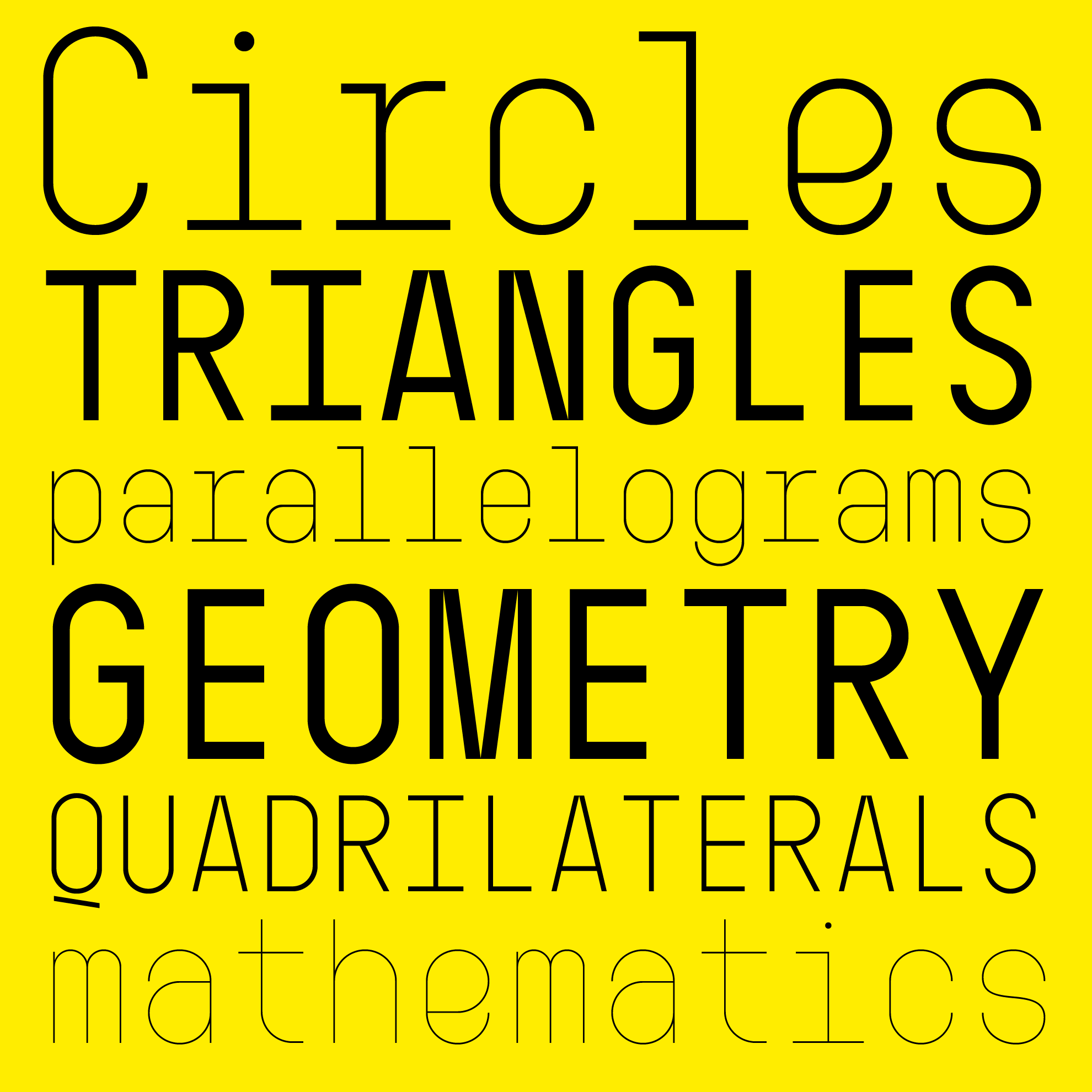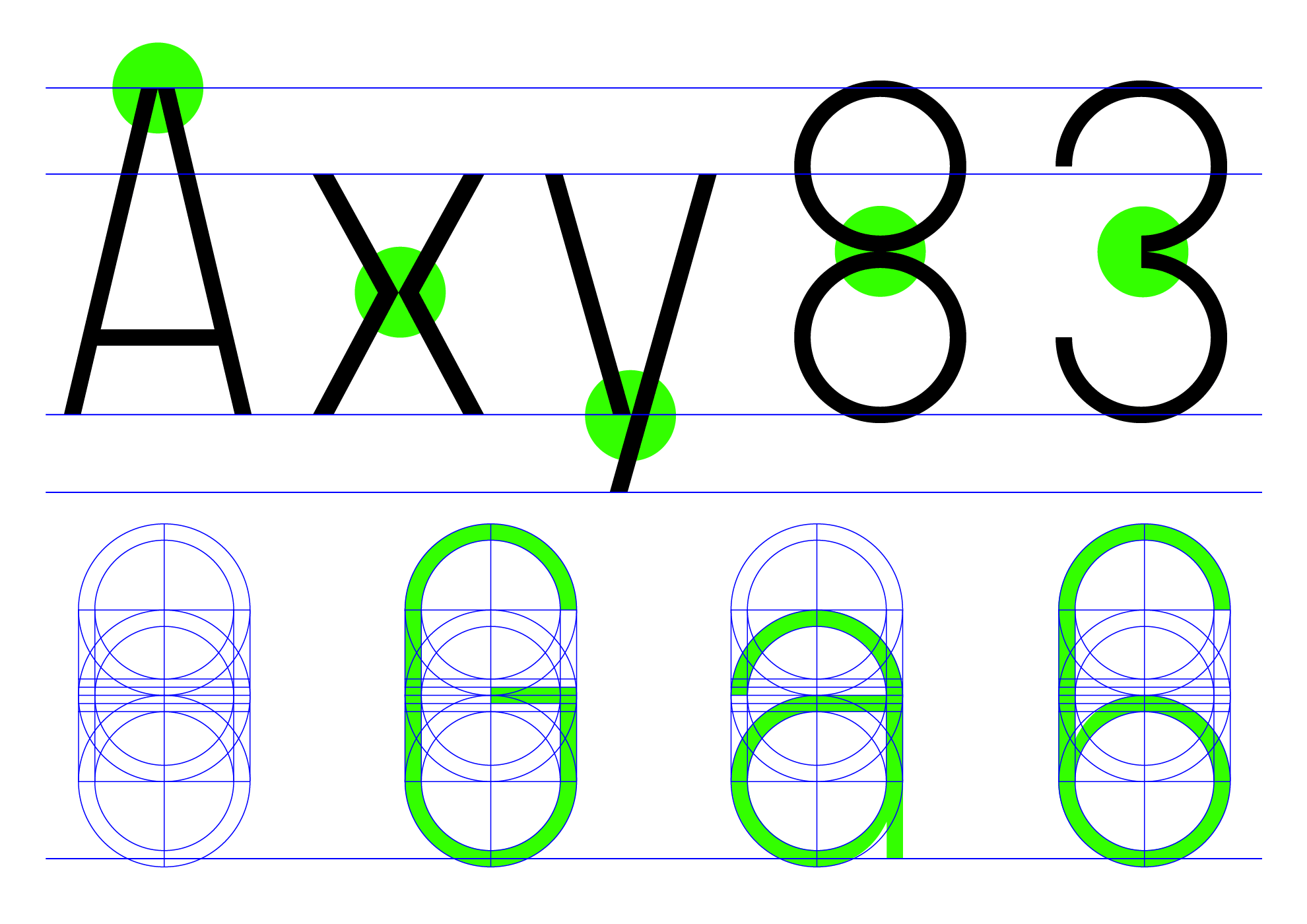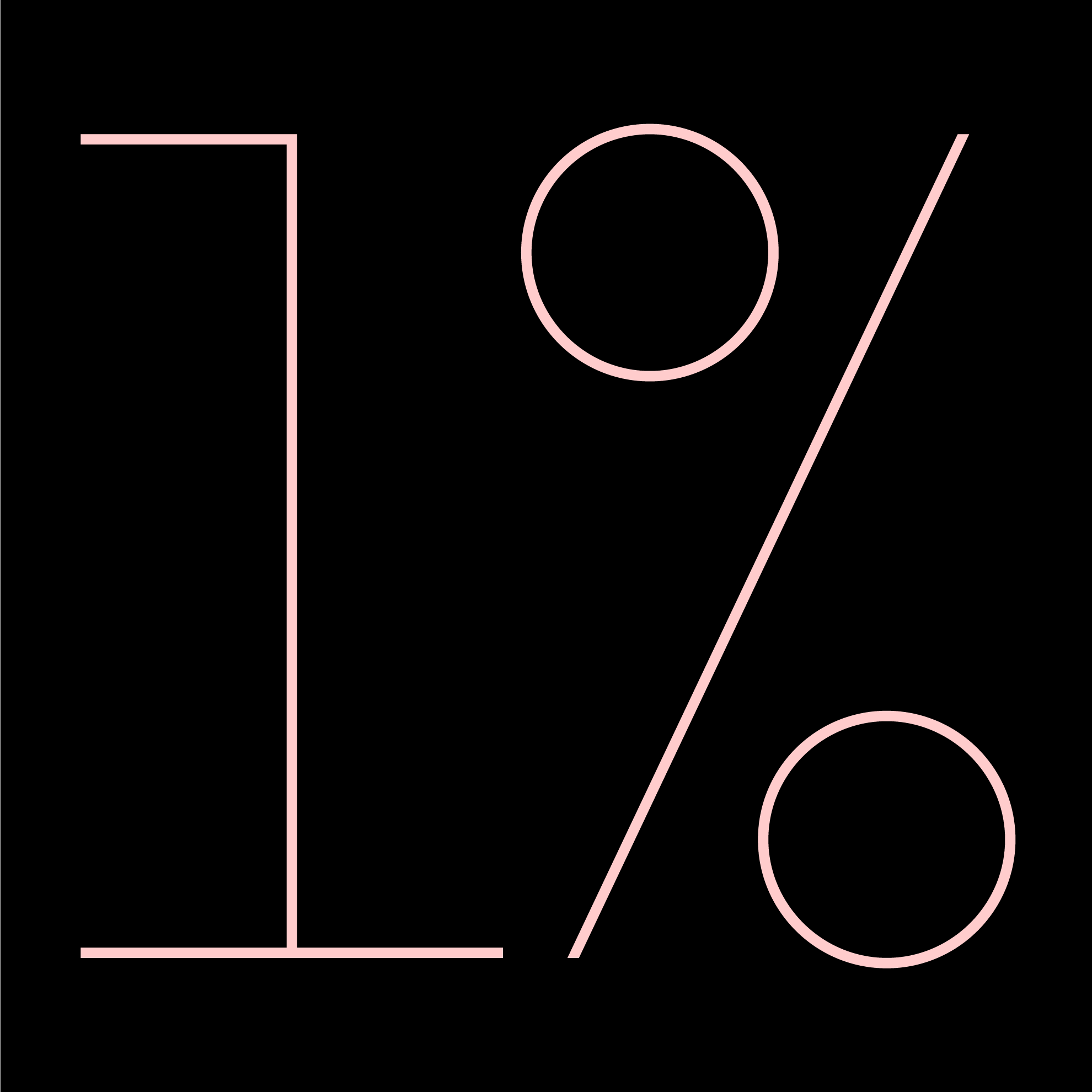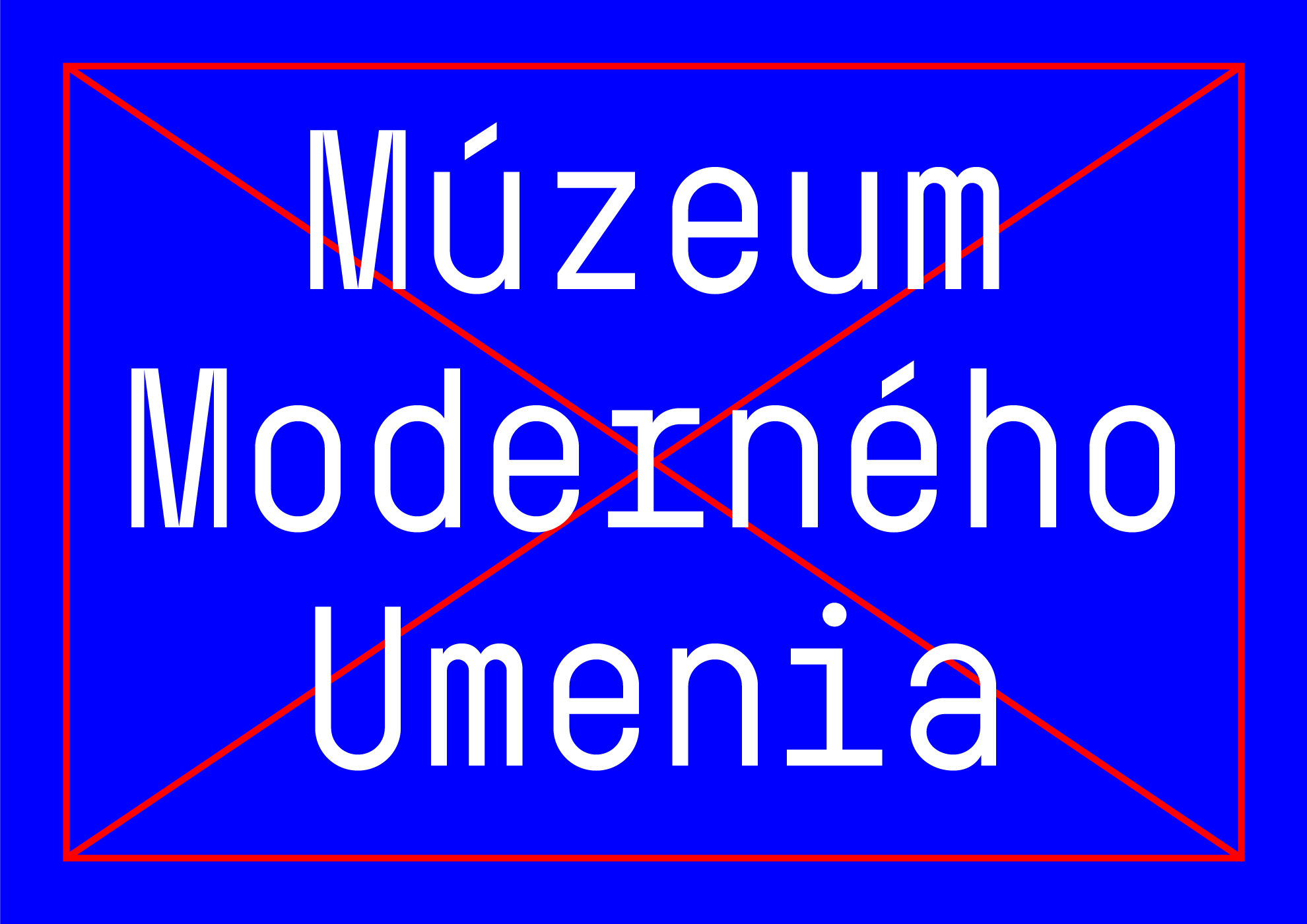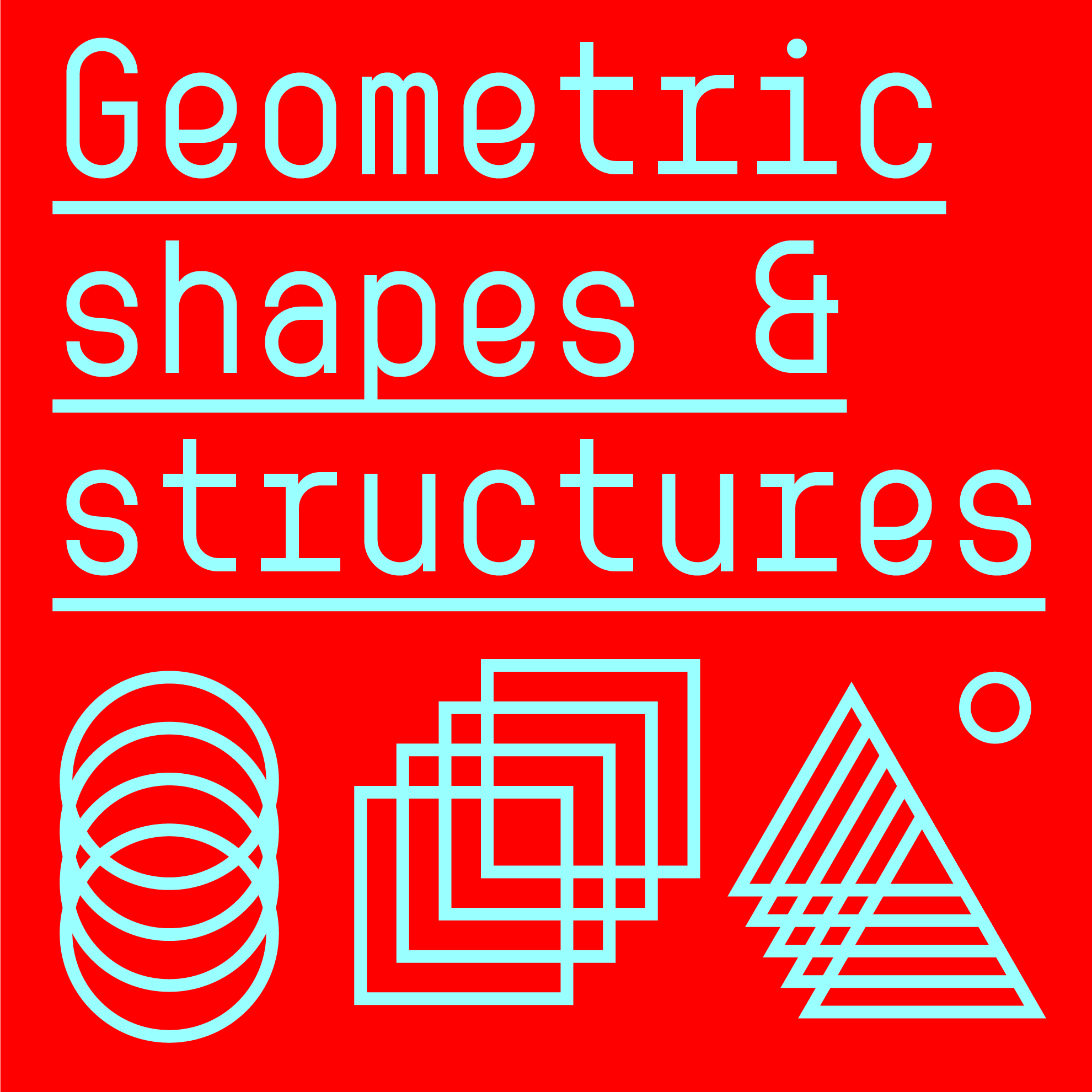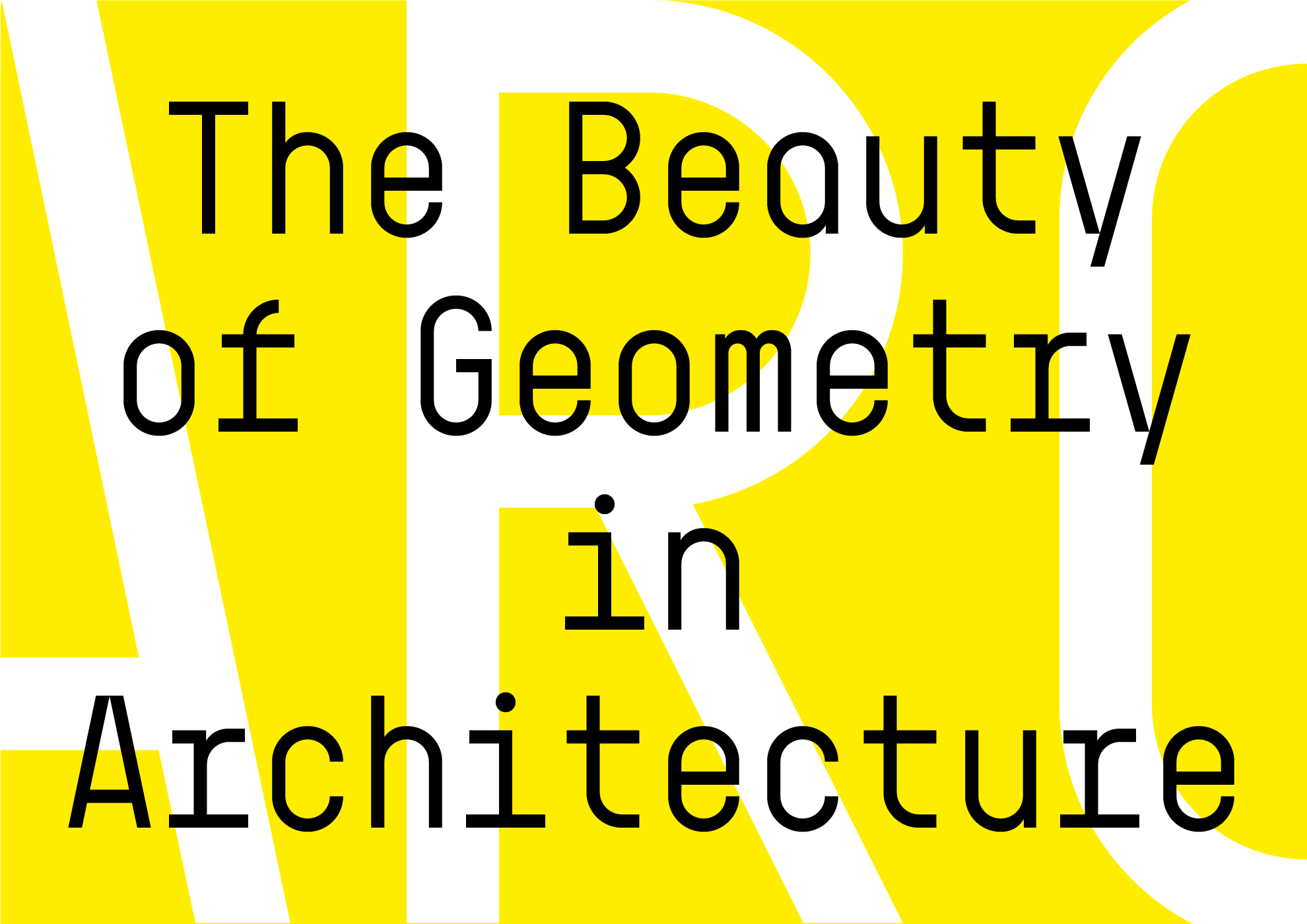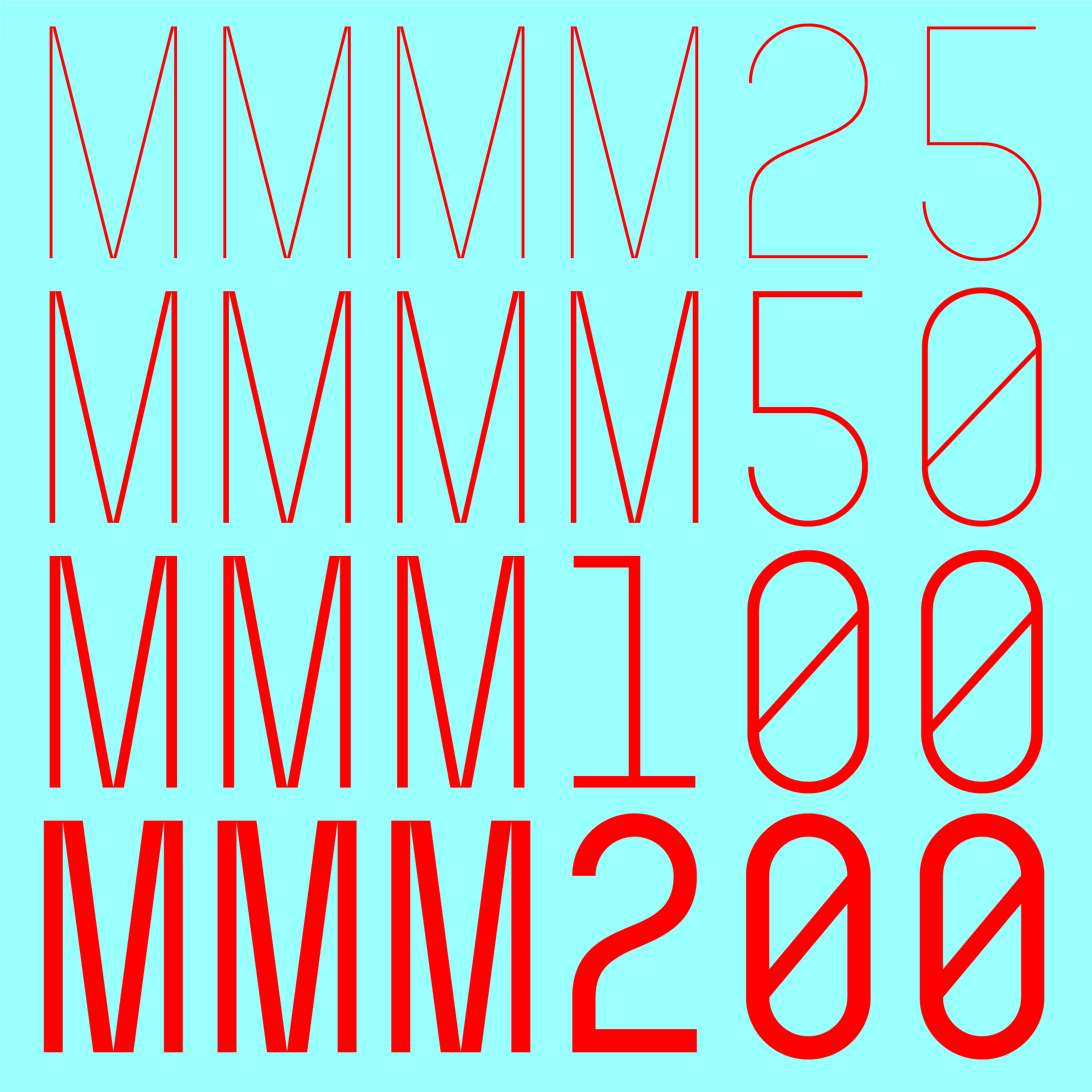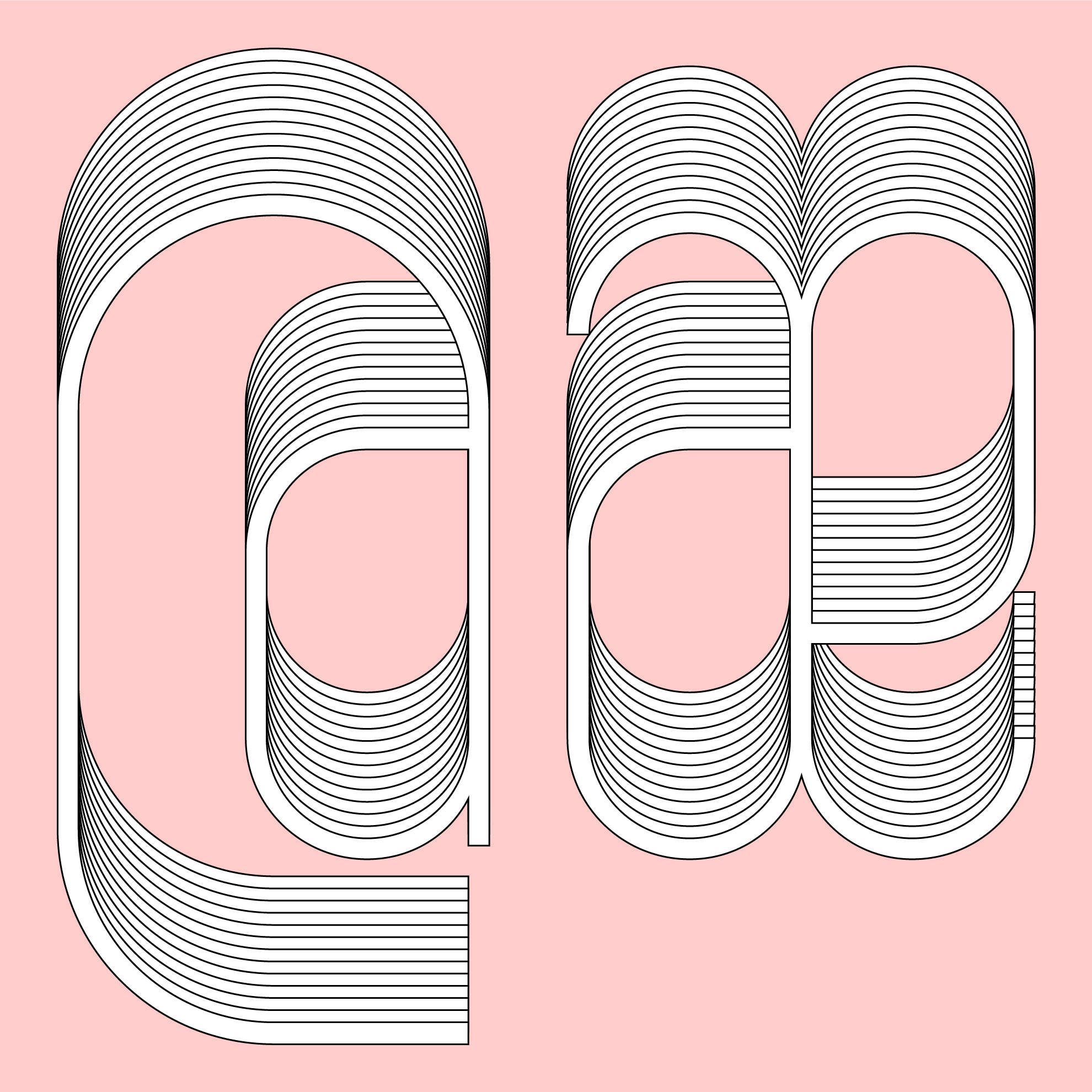
Technik Mono
Technik Mono is monospaced version of a Technik constructed typeface, which is almost strictly designed from basic geometrical elements consisting of mainly circles, also squares and diagonal shapes. Another characteristic is the connection of diagonals, verticals and diagonals, and also of some circle shapes touching each other at one point. It gives this type an original look, and prevents the problematic dark places in some letters. Technik is not designed as a text typeface, it is recommended mainly for display typesetting. You can use it for example in branding typography, or everywhere where you need the technical feeling of the constructed typefaces to look less cold and more friendly.